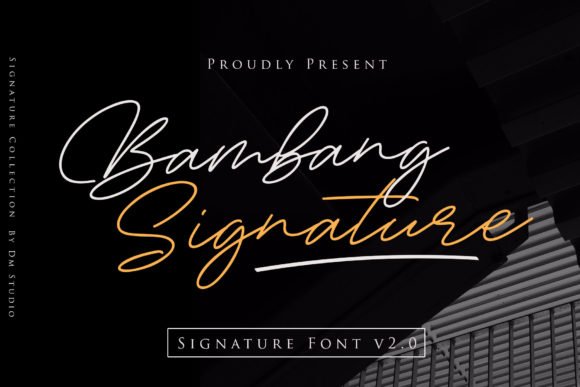
Adding a Touch of Elegance to Your Crafting Projects
Have you ever found yourself lost in a creative moment, surrounded by paint, glue, and paper, with the perfect idea just waiting to be brought to life? For many of us, crafting is more than just a hobby – it’s a way to express ourselves and connect with others. Whether you’re a seasoned crafter or just starting out, the right tools can make all the difference in bringing your vision to reality.
Enter the Bambang Signature Font, a beautiful and elegant handwritten script font that adds a romantic touch to any crafting project. With its flowing lines and classic charm, this font is perfect for adding a personal touch to invitations, cards, and other paper crafts. For designers, the Bambang Signature Font is a valuable asset, offering a unique and versatile tool for adding sophistication and elegance to any project.
Bambang Signature Font Key Features
- Unique Characteristics: Hand-drawn, organic feel with unique flourishes and connectors
- Language Support: Multi-language support including Latin, Cyrillic, and Greek alphabets
- Glyphs: Over 800 glyphs including ligatures, swashes, and alternates
Bambang Signature Font Review
I recently had the chance to work with the Bambang Signature Font, and I must say it’s a unique addition to any design project. ✨ The font’s eclectic mix of Indonesian and Western influences brings a refreshing touch to modern designs. The Bambang Signature Font is perfect for creating eye-catching headlines, quotes, or titles that require a distinctive flair.
One of the standout features of this font is its versatility. It can be used in a wide range of projects, from branding and marketing materials to social media graphics and digital publications. ✨ The font’s cursive and script styles make it ideal for handwritten-style text, while its bold and condensed versions are perfect for creating dynamic headings and titles.
- ⚠️ Limited character set: The Bambang Signature Font has a limited character set, which may make it less suitable for projects that require a large amount of text.
- ⚠️ Not ideal for body text: While the font is great for headlines and titles, it’s not the best choice for body text due to its irregular letterforms and limited legibility at smaller font sizes.
Overall, I think the Bambang Signature Font is a great addition to any designer’s toolkit. Its unique style and versatility make it perfect for projects that require a distinctive touch. While it has some limitations, I believe the benefits far outweigh the drawbacks. If you’re looking for a font that will help you stand out from the crowd, the Bambang Signature Font is definitely worth checking out.
Some tips for getting the most out of the Bambang Signature Font include:
- Using the font for creative and playful purposes, such as in social media graphics or branding materials.
- Applying the font to text elements that require a unique and eye-catching look.
- Experimenting with different font sizes and styles to achieve a desired effect.
Alternatives to Bambang Signature Font
Great Vibes is a beautiful, elegant script font ideal for creating a sense of sophistication and refinement. It’s perfect for use in wedding invitations, luxury brands, and high-end packaging. Great Vibes has a more refined and polished look compared to Bambang Signature Font, which has a more playful and casual feel.
Carolyna Pro is a modern, stylish script font that’s great for creating a sense of luxury and glamour. It’s perfect for use in fashion brands, beauty products, and high-end lifestyle brands. Carolyna Pro has a more contemporary look compared to Bambang Signature Font, which has a more vintage feel.